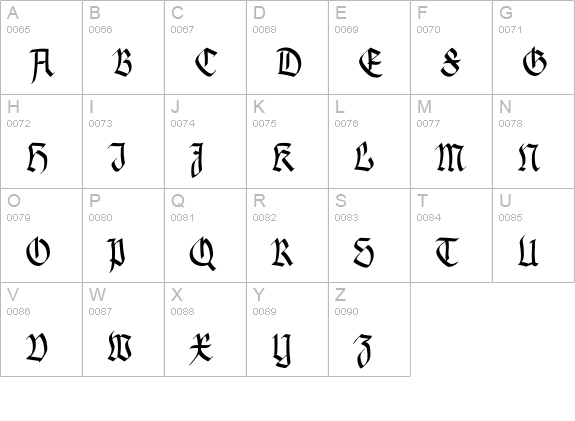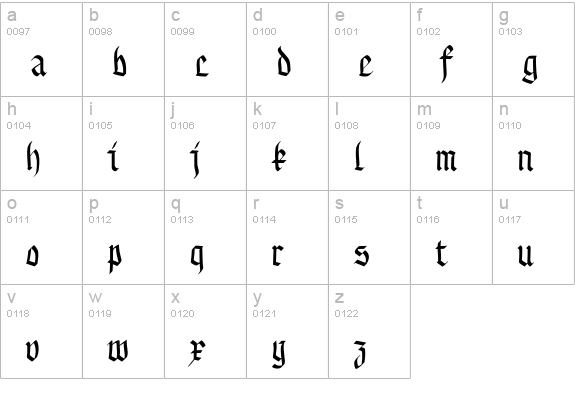
BuchkunstBold Font Details
BuchkunstBold is a striking and bold font that exudes elegance and sophistication. Its strong, clean lines make it perfect for creating eye-catching headlines and titles. With its classic yet modern design, BuchkunstBold adds a touch of refinement to any project. What sets BuchkunstBold apart is that it is not only visually appealing but also free to download. Yes, that's right - you can enhance your designs with this stunning font at no cost! Simply visit FontsMarket.com to access this beautiful typeface and take your projects to the next level. Embrace the timeless beauty and versatility of BuchkunstBold in your designs today. Download it for free and let your creativity soar!